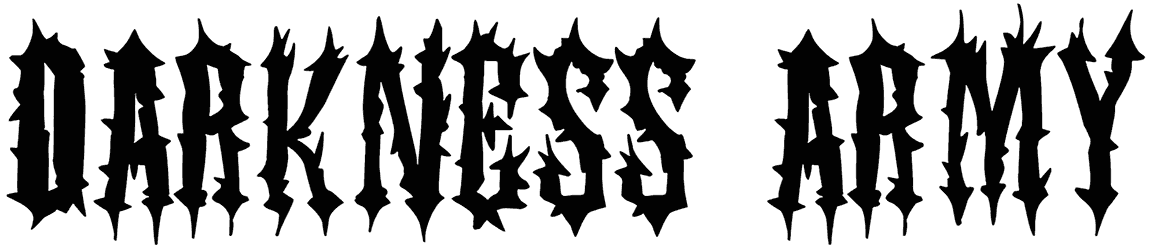
Darkness Army Font
If you want to show your audience no mercy, Darkness Army is going to make it pretty clear for everyone. So make sure not to use this daunting death metal font for your artwork unless you enjoy joining hands with the dark side and playing dirty.
As an evil font, Darkness Army is pretty much always used for warnings and scaring people. That means you can totally consider this all-caps font for your witch games, Halloween posters, and so much more.
Darkness Army.